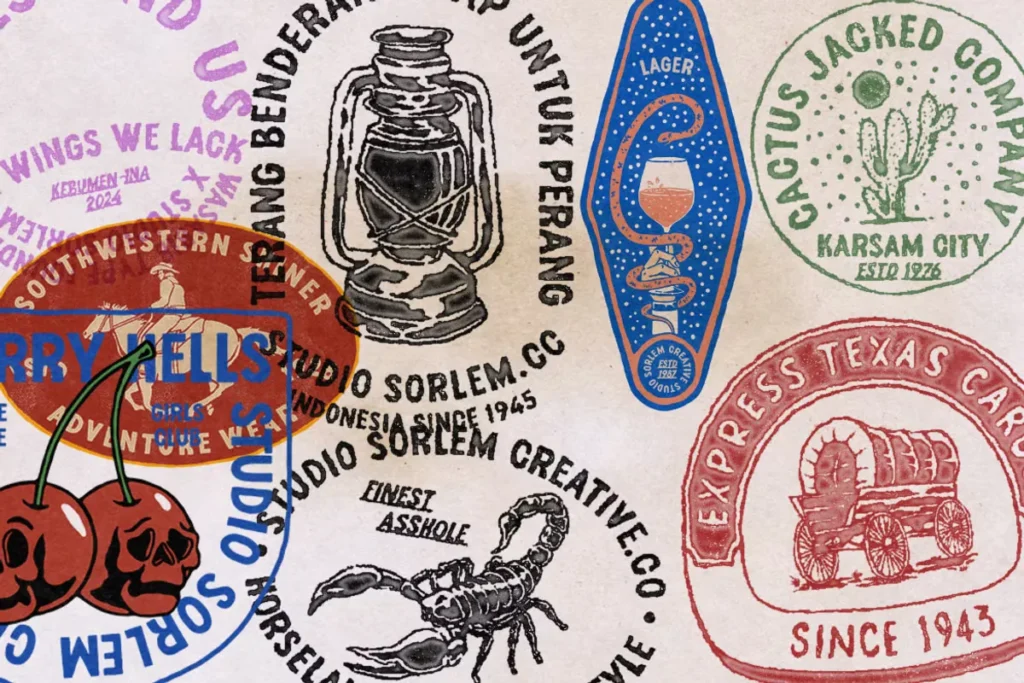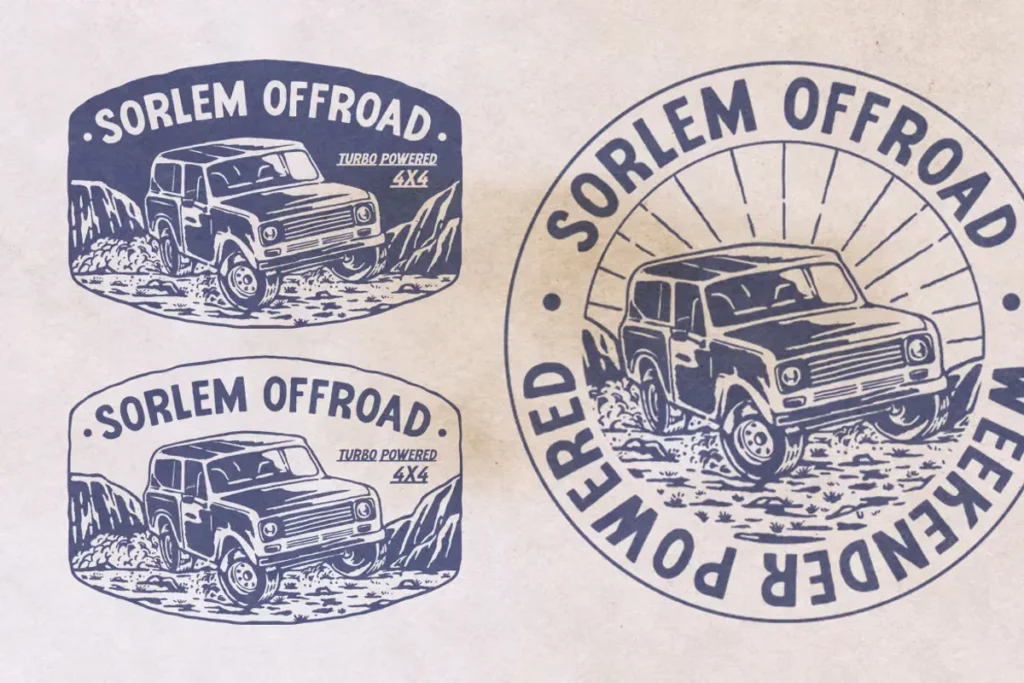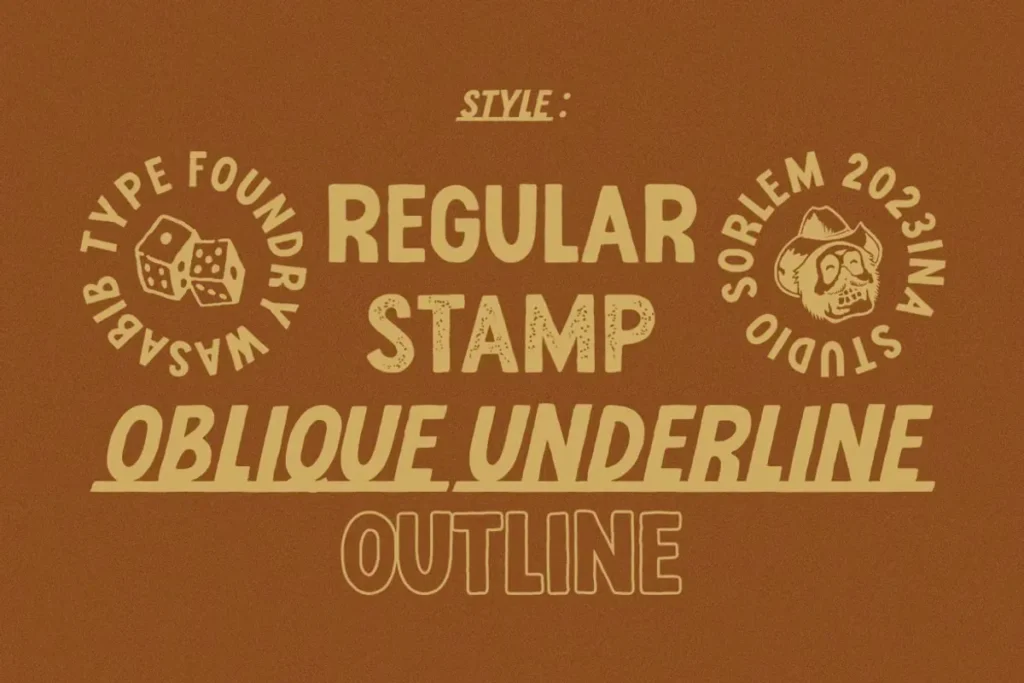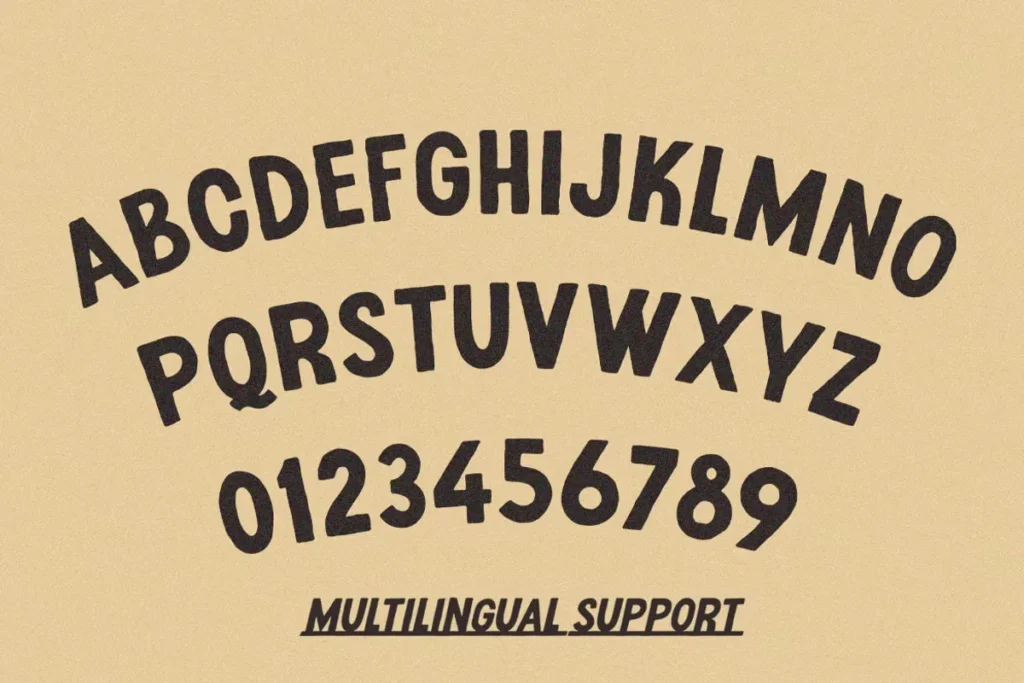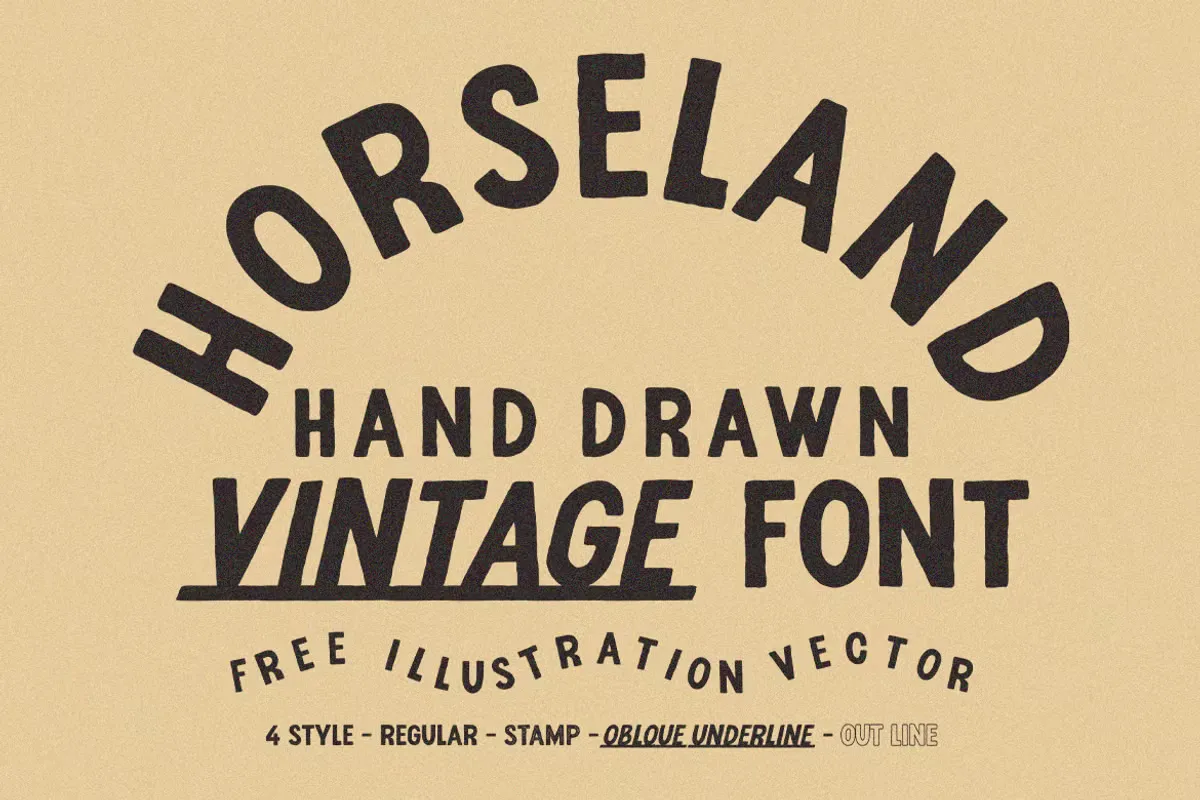
Horseland is a beautifully crafted free hand-drawn vintage font that brings authenticity, character, and timeless appeal to any creative project. Inspired by classic handcrafted lettering, this unique typeface features textured details, rough edges, and imperfect strokes that create a genuine vintage look. Whether you’re designing logos, branding materials, packaging, posters, apparel graphics, signage, or social media content, Horseland adds a nostalgic and artistic touch that instantly stands out.
The font comes in four versatile styles: Regular, Stamp, Slant Underline, and Outline, allowing designers to experiment with different visual effects while maintaining a cohesive vintage aesthetic. Its distressed appearance and playful personality make it ideal for retro branding, outdoor adventure themes, motorcycle graphics, hipster-inspired projects, custom lettering, and creative illustrations.
Horseland combines the charm of old-school typography with modern design flexibility, making it suitable for both personal and commercial projects. From bold logotypes and packaging designs to movie posters and clothing graphics, this font delivers a handcrafted feel that captures attention and enhances visual storytelling. If you’re looking for a free vintage display font with authentic hand-drawn character, Horseland is an excellent addition to your font collection.